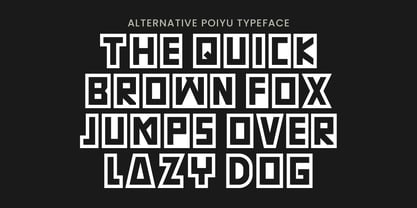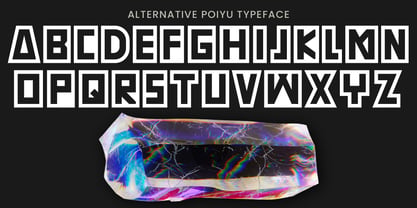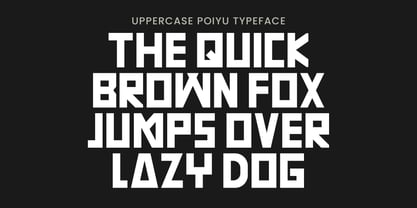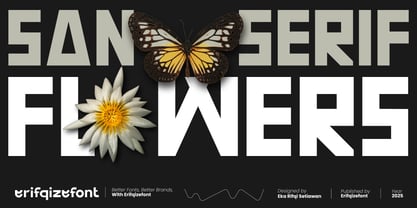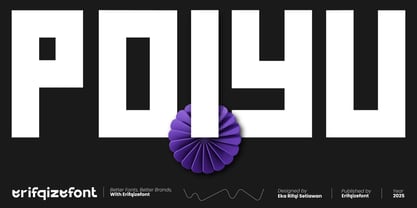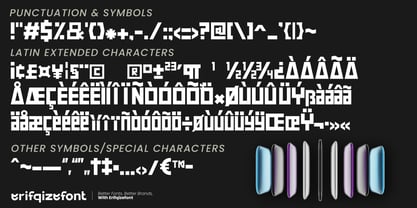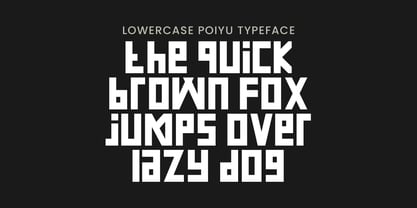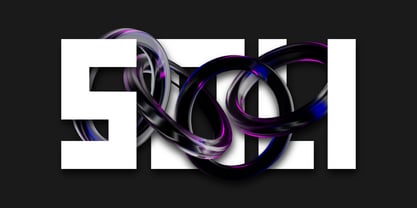
Poiyu
by Erifqizefont
The Poiyu Font Family was designed by Eka Rifqi Setiawan and published by Erifqizefont. Poiyu contains 1 styles. More about this family
Poiyu is a futuristic geometric display font characterized by bold, solid letterforms and a distinctive square structure. Each character features clean edges and angular details, creating a modern and digital aesthetic that stands out in any layout. This font is ideal for projects requiring a strong and contemporary visual identity, such as tech branding, sci-fi posters, gaming titles, or futuristic logos. The balanced structure and geometric cuts ensure that Poiyu remains both readable and striking, making it perfect for display use in larger sizes. Utilize Poiyu to infuse your design projects with a sense of innovation and power. Its unique blend of digital precision and bold styling will give your typography a sharp, confident, and forward-thinking appearance. Features include uppercase and lowercase letters, numbers, a bold geometric style, a modern and futuristic concept, and multilingual support, making it great for logos, posters, and headlines.
Designers: Eka Rifqi Setiawan
Foundry: Erifqizefont
Introducing Erifqizefont, a Foundry led by Eka Rifqi Setiawan. Originating from Eka's experience as an Icon Designer, Erifqizefont specializes in bold, symmetrical Display Fonts with futuristic elements, occasionally exploring retro and whimsical styles. Based in Indonesia, Erifqizefont integrates the nation's cultural heritage into its designs. As a sole proprietor, Eka focuses on crafting superior, unique fonts, setting Erifqizefont apart in the industry.